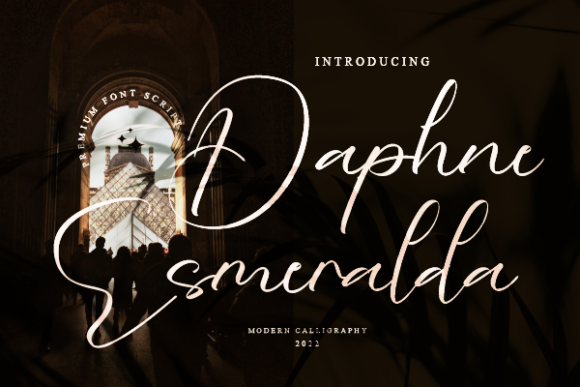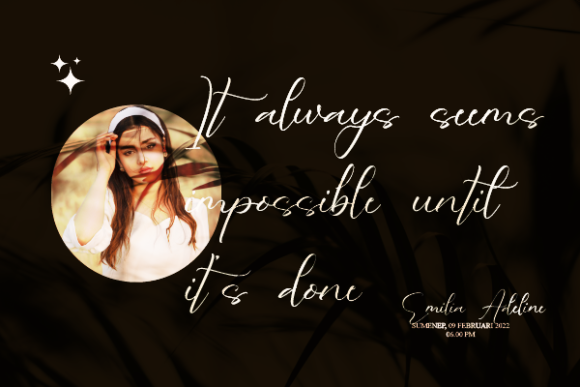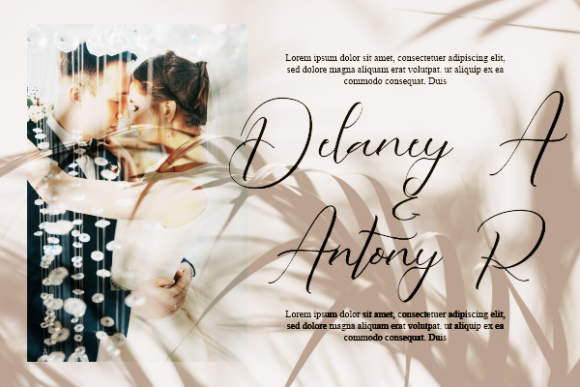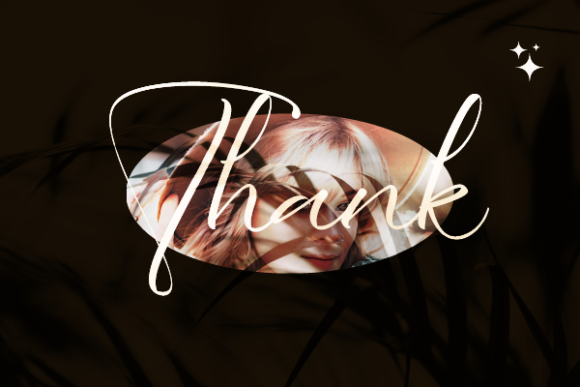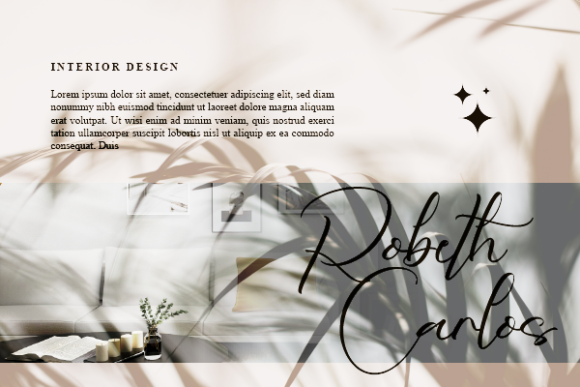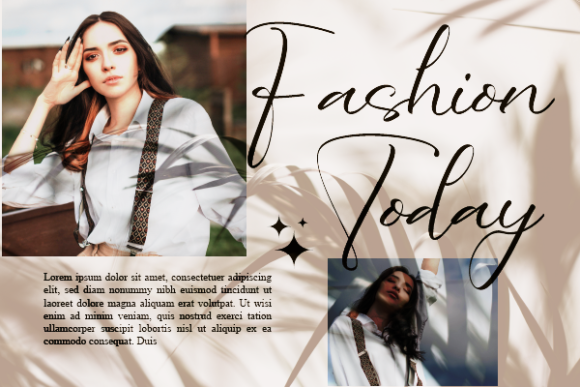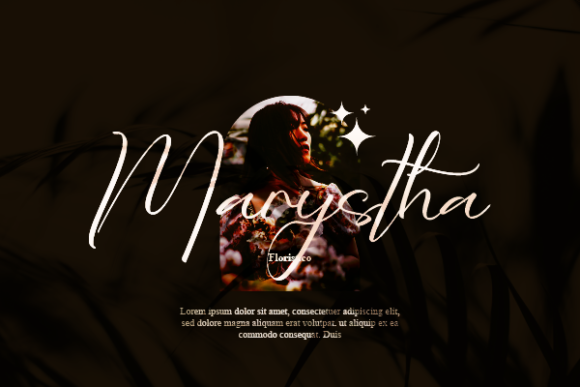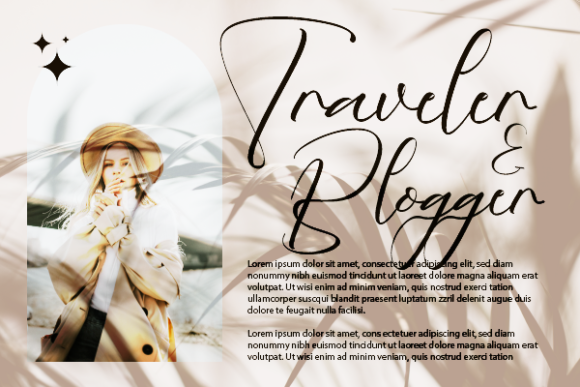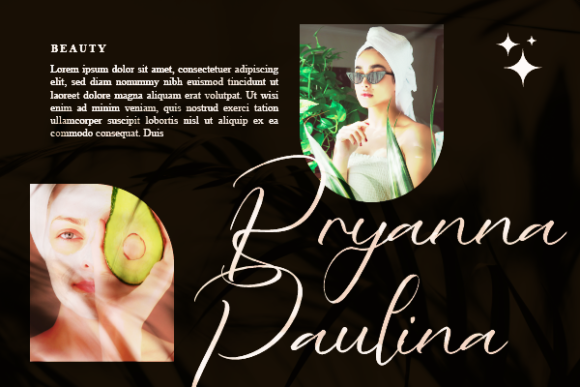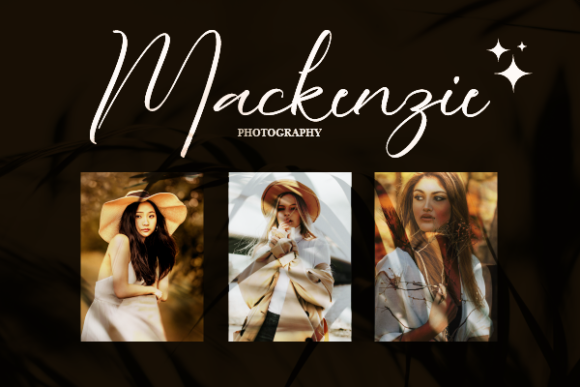
Daphne Esmeralda Font
About Daphne Esmeralda Font
Daphne Esmeralda is a script font that effortlessly embodies a sense of relaxation and elegance. Its unique combination of attributes—classy, elegant, and modern—makes it a versatile choice for a wide range of design projects. With its captivating charm, Daphne Esmeralda can be seamlessly integrated into various applications, from logo design and branding to invitations, stationery, wedding materials, social media graphics, and beyond.
The relaxed yet refined nature of Daphne Esmeralda’s letterforms allows it to effortlessly exude an air of sophistication while maintaining a sense of ease. This duality makes it particularly well-suited for creating designs that strike a harmonious balance between formal elegance and approachable warmth.
When used for logos and branding, Daphne Esmeralda can infuse your visual identity with a touch of timeless appeal. Its graceful curves and well-crafted details lend an air of authenticity to your brand, enhancing its overall aesthetic and making a memorable impression on your audience.
Invitations and stationery designed with Daphne Esmeralda convey a sense of refined beauty, setting the tone for special occasions with their elegant yet relaxed demeanor. From weddings to corporate events, this font can transform ordinary correspondence into extraordinary keepsakes.
In the realm of digital design, Daphne Esmeralda adds a touch of sophistication to social media posts, allowing you to convey messages with style and flair. Its modern look ensures that your content remains current and engaging, capturing the attention of your audience with its graceful allure.
Furthermore, Daphne Esmeralda’s versatility extends to its ability to evoke emotion and atmosphere. Whether you’re aiming for a serene and tranquil vibe or a more vibrant and lively ambiance, this font can adapt to suit the mood of your project.
By integrating Daphne Esmeralda into your design toolkit, you’re tapping into a font that seamlessly blends relaxation and elegance. Its versatility, combined with its modern and classy aesthetic, empowers you to create compelling and captivating designs that resonate with your target audience. As you explore its potential across various design applications, you’ll discover the countless ways in which Daphne Esmeralda can enhance the visual impact of your creative endeavors.